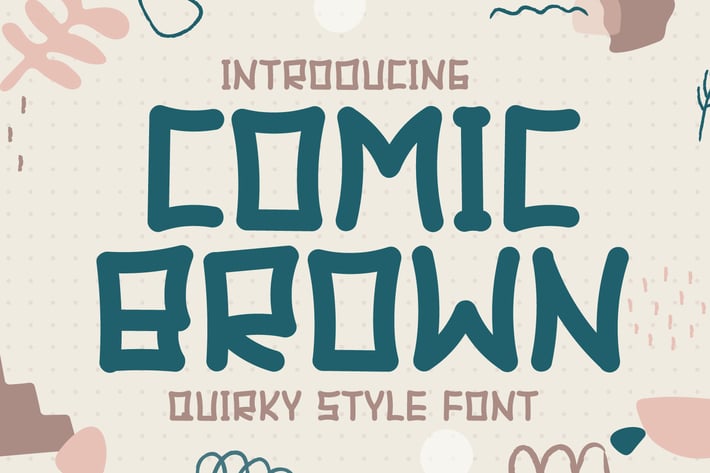
Comic Brown - Quirky Display Font
Introducing Comic Brown - Quirky Display Font
Comic Brown is fun and quirky-looking display font. Add this squared lettered and neat font to your creations and they will instantly come to life